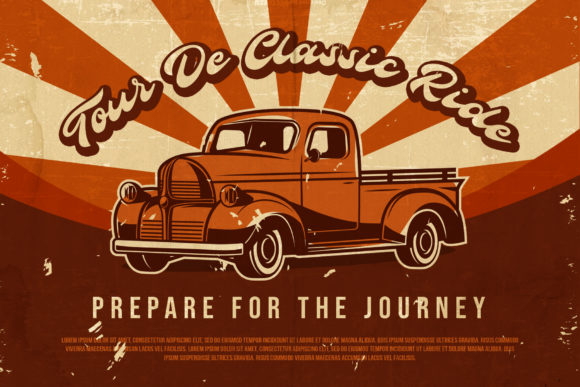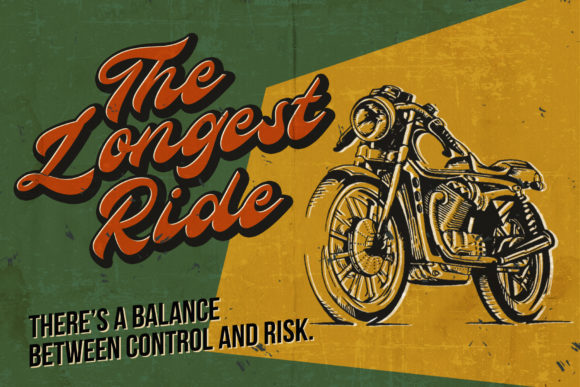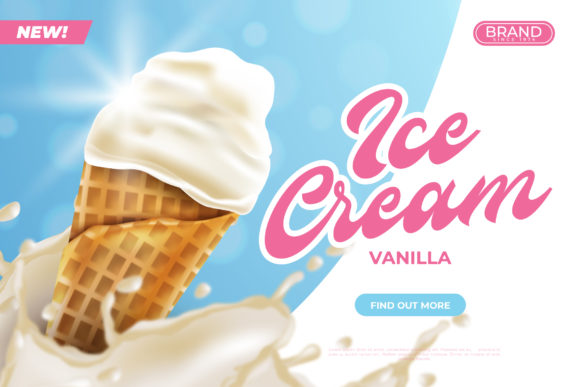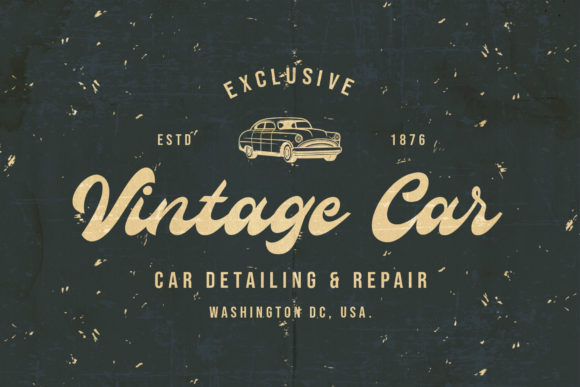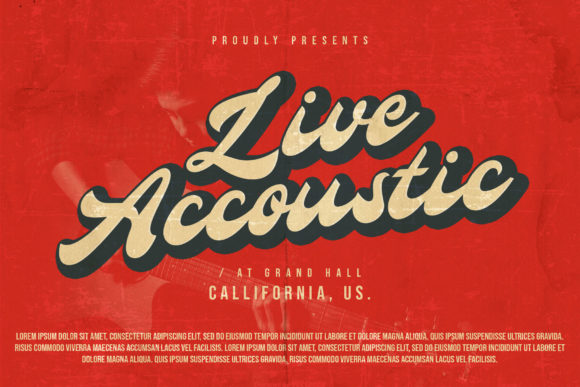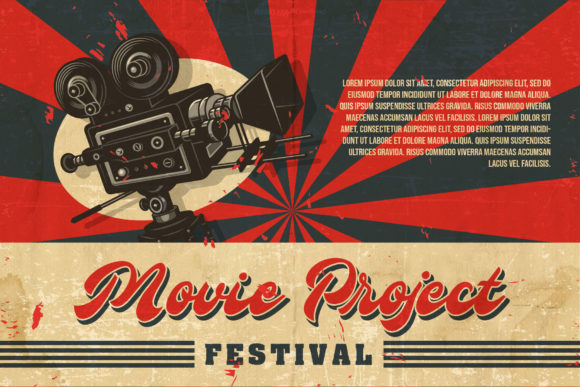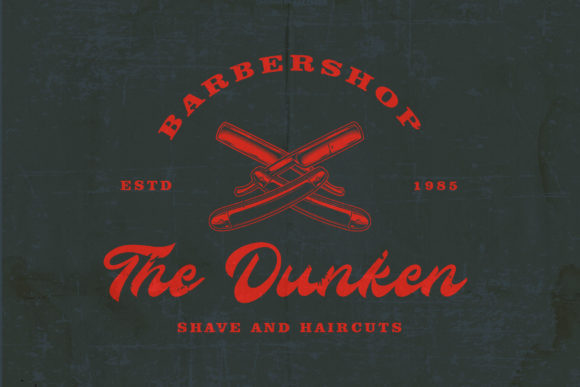
Antique Cable Font
About Antique Cable Font
Antique Cable is a flowing handwritten font, delivering an incredible vintage aesthetic. Fall in love with its incredibly distinct and timeless style and use it to create spectacular designs!